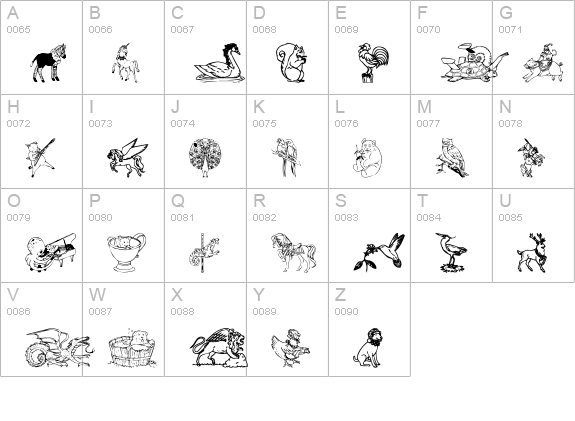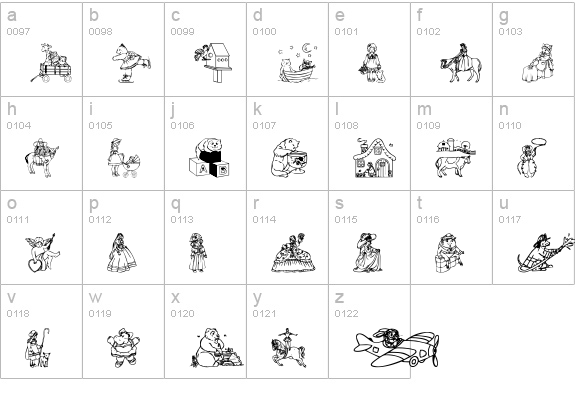
DingDelights Font Details
Introducing DingDelights font, a whimsical and playful typeface that is sure to bring a touch of charm to your designs. Perfect for adding a fun and quirky element to any project, DingDelights features a delightful assortment of dingbat characters that will surely capture the attention of your audience. This font is not only charming and versatile, but it is also completely free to download at FontsMarket.com. Whether you are working on a creative project, designing invitations, or simply looking to add a bit of flair to your social media posts, DingDelights is the perfect choice. With its unique characters and eye-catching design, this font is sure to become a favorite in your collection. Don't miss out on the opportunity to enhance your designs with DingDelights font, available for free download at FontsMarket.com. Add a touch of whimsy and personality to your projects with this delightful and charming typeface.